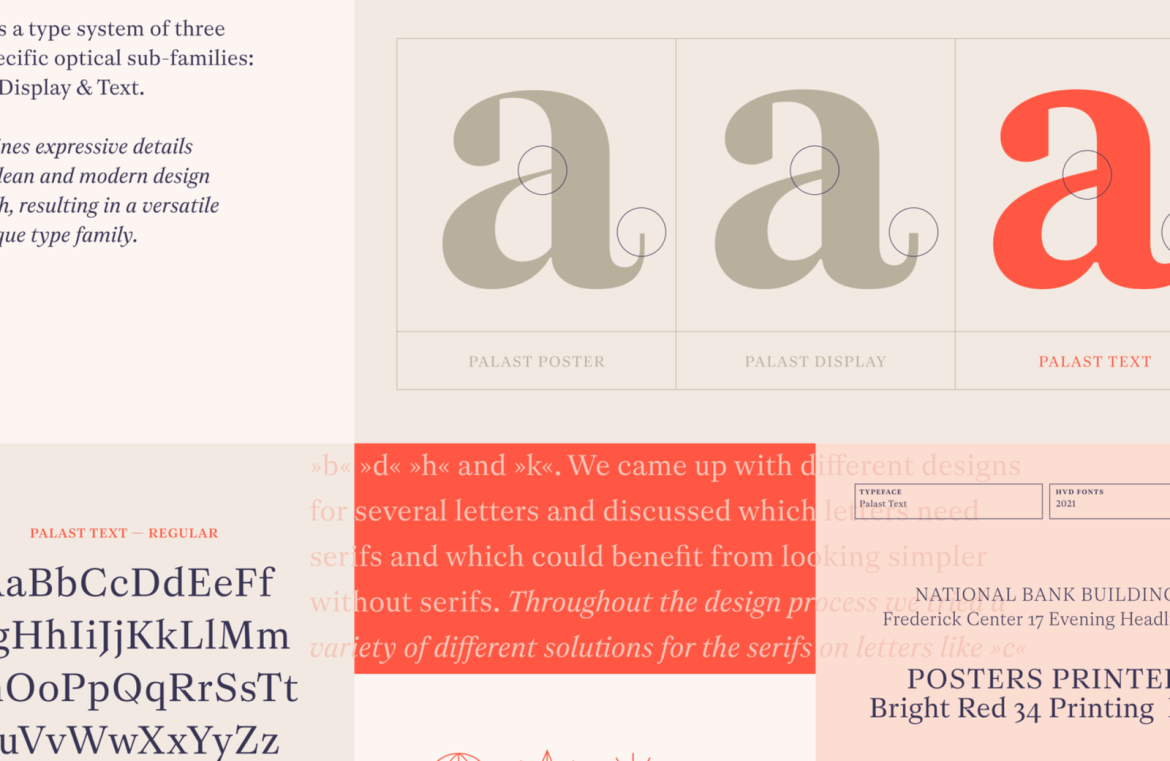
If you’re seeking a departure from the repetitive Google font usage seen across numerous sites, today is your day!
Our collection this month highlights fresh typefaces straight from the hands of independent typographers and designers from around the globe.
Stellar Nova
Stellar Nova stands out as a typeface inspired by space-age aesthetics, offering a suite of seven styles ideal for eclectic combinations. Its modular nature is complemented by an array of contrasting weights, providing a playground for creative expression.
Empire
Empire Serif and Empire Sans Serif originated as a fusion of stencil, serif, and sans serif features but evolved into two distinct font families, each boasting four versatile weights.
Maestro
Maestro challenges traditional type families by offering four distinct styles, each with unique structural and weight characteristics. This versatility allows for an extensive range of branding applications.
Regent
Regent, reminiscent of the classic Scotch Roman style, is crafted for clarity and robustness, making it a natural choice for editorial purposes.
Victor
Victor is a warm and bold typeface comprising nine weights. It shines in high-impact scenarios such as branding and headlines with its assertive character.
Dove
Dove emulates the time-honored printing press letterforms. Its narrow and crisp serifs are tailored for dense text settings, both online and in print.
Cadenza
Cadenza brings a unique flair with its curved transitions and seven distinct fonts, perfect for creating standout product packaging and digital branding.
Literata
Literata channels typewriter elegance from the 19th century and is a great fit for literary publications and editorials.
Industry
Industry offers an expansive set of 60 styles, including five widths and six weights with italics. Inspired by 19th-century signage, this semi-constructed grotesque font boasts excellent readability.
Helvetica Renewed
Helvetica Renewed Variable is an update that expands upon the classic 1957 Helvetica design, introducing over a million styles. This allows for diverse content creation, from print material to dynamic typographic animations.
Royal Suite
The Royal Suite Text, Royal Suite Display, and Royal Suite Poster make up a meticulously designed serif family, adaptable to a breadth of graphical and web design projects.
Moderno
Moderno captures the essence of contemporary humanistic typeface design, offering compact spacing and pronounced characters to maximize headline appeal and legibility.
New Gothic
New Gothic is an extensive font family featuring 98 styles, encompassing various weights, widths, 20-degree italics, and flexible contrast. Its design nods to classic serif fonts, despite being a contemporary sans serif with striking contrast in strokes.
Geometric Harmony
Geometric Harmony Text delivers a seamless geometric sans serif experience, complemented with a Display family for those needing a similar aesthetic in larger formats.
Artisan Gothic
Artisan Gothic showcases variable font innovation with its sans serif design that emulates the craftsmanship of brush and chisel.